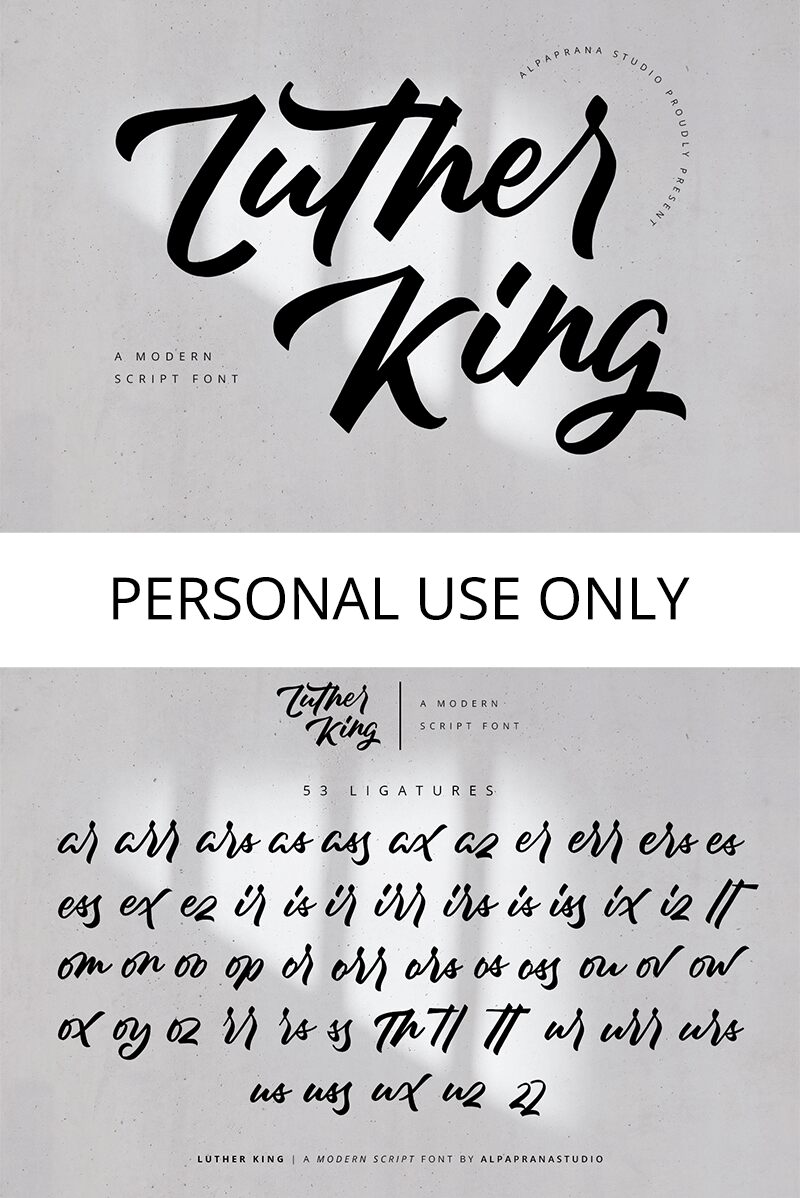
Luther King
Luther King font by Alpaprana Studio is a handwritten font with casual elegance and a flowing movement. This modern typeface has an artistic flair, an expressive character, and a contemporary touch. Its irregular lines make it stand out among other fonts and which sort of makes it more noticeable than usual.
The free handwritten font is suitable for logos, advertising posters, magazine front pages, titles & headings, quotes, invitation card designs/topics, packaging designs, stamps and labels. Luther King looks also good in apparel design (like printed on t-shirts) or any other friendly online or printed communication material.